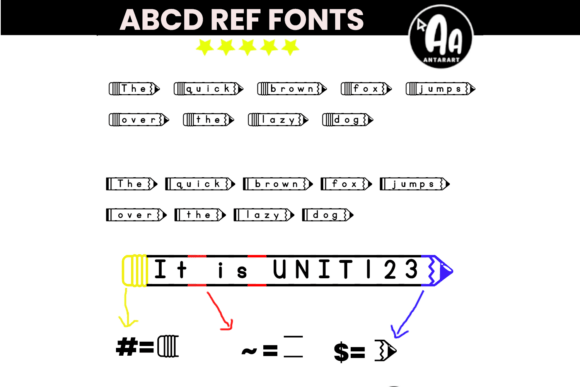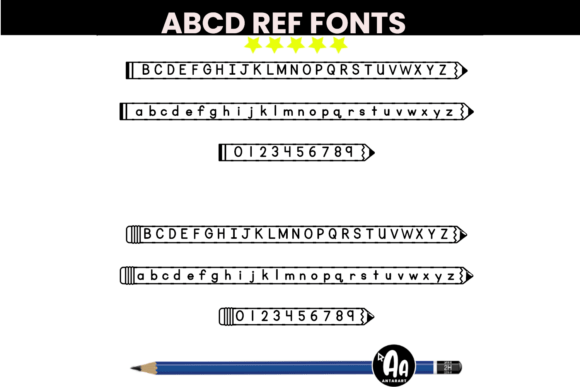
Discover the Abcd Ref Pen Shape Font: A Game-Changer for Classroom Organization and Creative Learning Displays
As a designer and creative enthusiast, I’ve had my fair share of moments where I struggled to find the perfect font for a project. One particular instance that stands out was when I was working on a classroom organization project for a local school. The client wanted a font that would not only be functional but also add a touch of whimsy and fun to the learning environment. That’s when I stumbled upon the Abcd Ref Pen Shape Font, a versatile 2-style Pencil Shape Font Pack that has since become a staple in my design toolkit.
• ✅ Versatility: This font pack is designed for both vertical and horizontal layouts, making it perfect for a variety of applications, from classroom labels to pencil-themed calendar flips.
• ✅ Clean Design: Each character is framed within a clean, pencil-shaped outline, giving your labels and visual aids a cohesive and polished look.
• ✅ Customization: With OpenType features and glyphs, you can customize your text to fit your design needs.
• 🤔 Glyph Access: Some users might find it tricky to access certain glyphs or stylistic alternates, especially if they’re new to using OpenType features.
• ⚠️ Font Size Limitations: Depending on the design program you’re using, you might need to adjust the font size to ensure the pencil shape outline doesn’t become too distorted.
The Designer Inspiration Behind the Abcd Ref Pen Shape Font
The Abcd Ref Pen Shape Font was designed with the classroom in mind. The creator, a passionate educator and designer, wanted to create a font that would bring a touch of fun and personality to learning environments. Inspired by the humble pencil, the font’s clean design and versatile layout options make it perfect for a variety of applications.